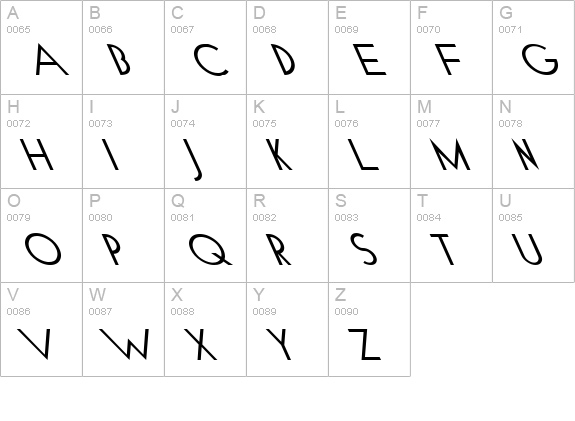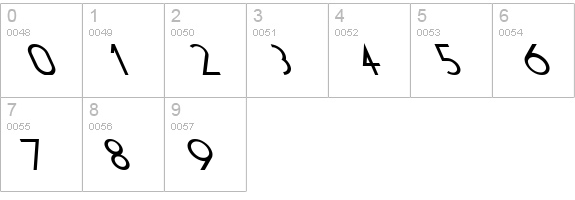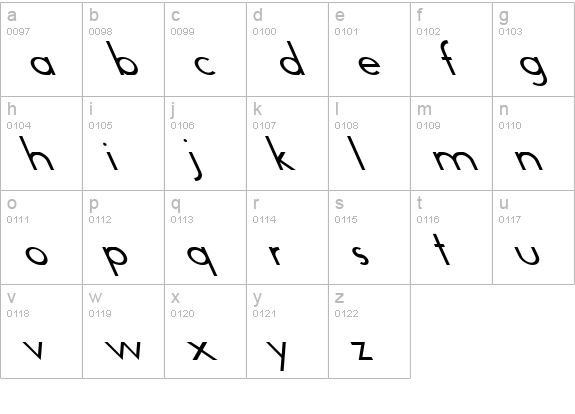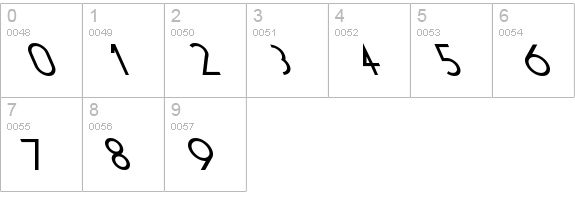
Geo Plain Lefty Font Details
Geo Plain Lefty font is a unique and eye-catching typeface that brings a touch of modern elegance to any design project. Its sleek lines and smooth curves make it perfect for a wide range of applications, from branding and advertising to web design and social media graphics. What sets Geo Plain Lefty font apart is its distinctive left-slanted style, giving your text a dynamic and playful look that is sure to grab attention. Whether you're creating a logo, poster, or website, this font is sure to make a bold statement. Best of all, Geo Plain Lefty font is available for free download at FontsMarket.com, making it easy to add this stylish typeface to your collection without breaking the bank. So why wait? Download Geo Plain Lefty font today and give your designs that extra touch of flair they need to stand out from the crowd.